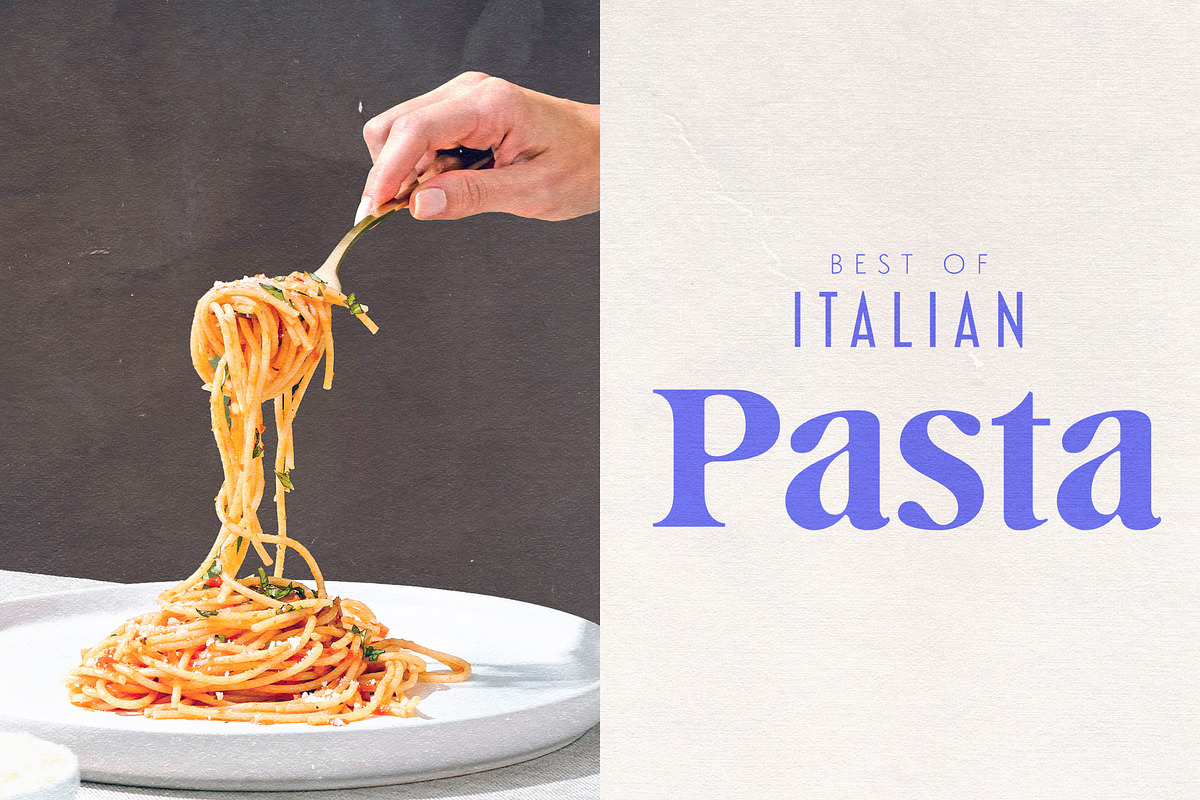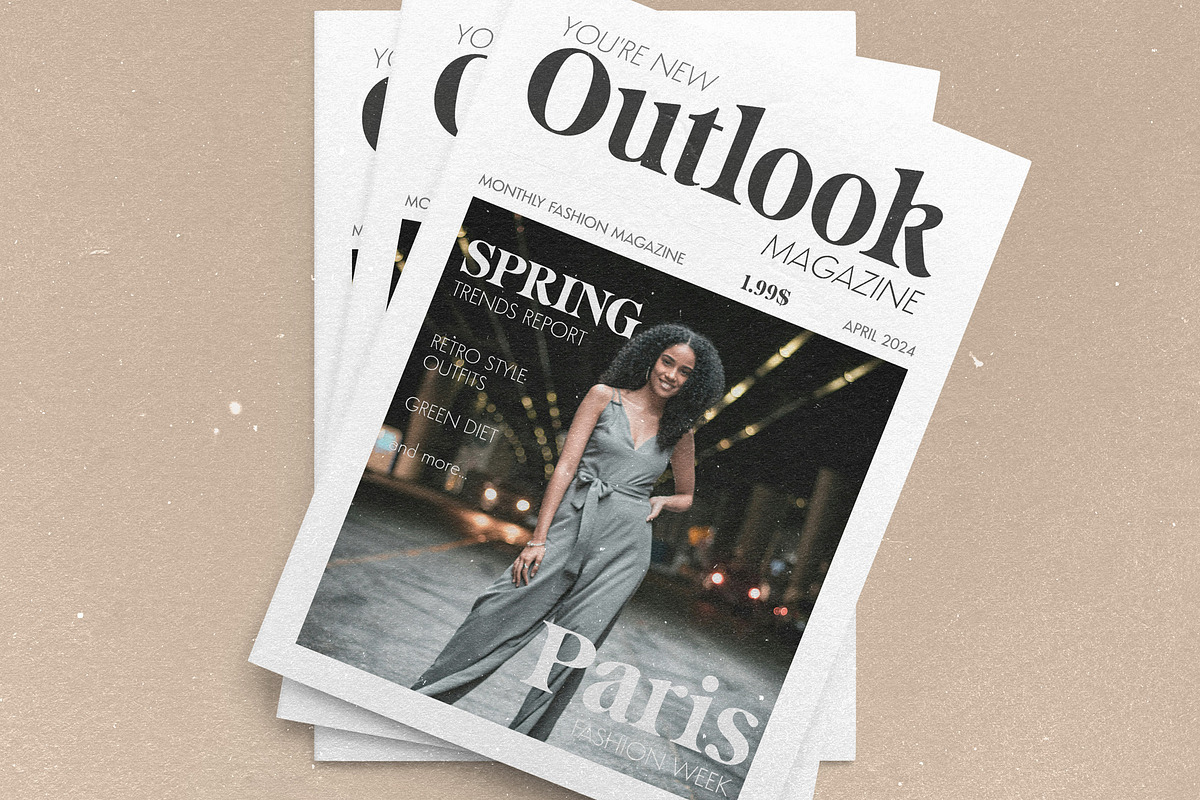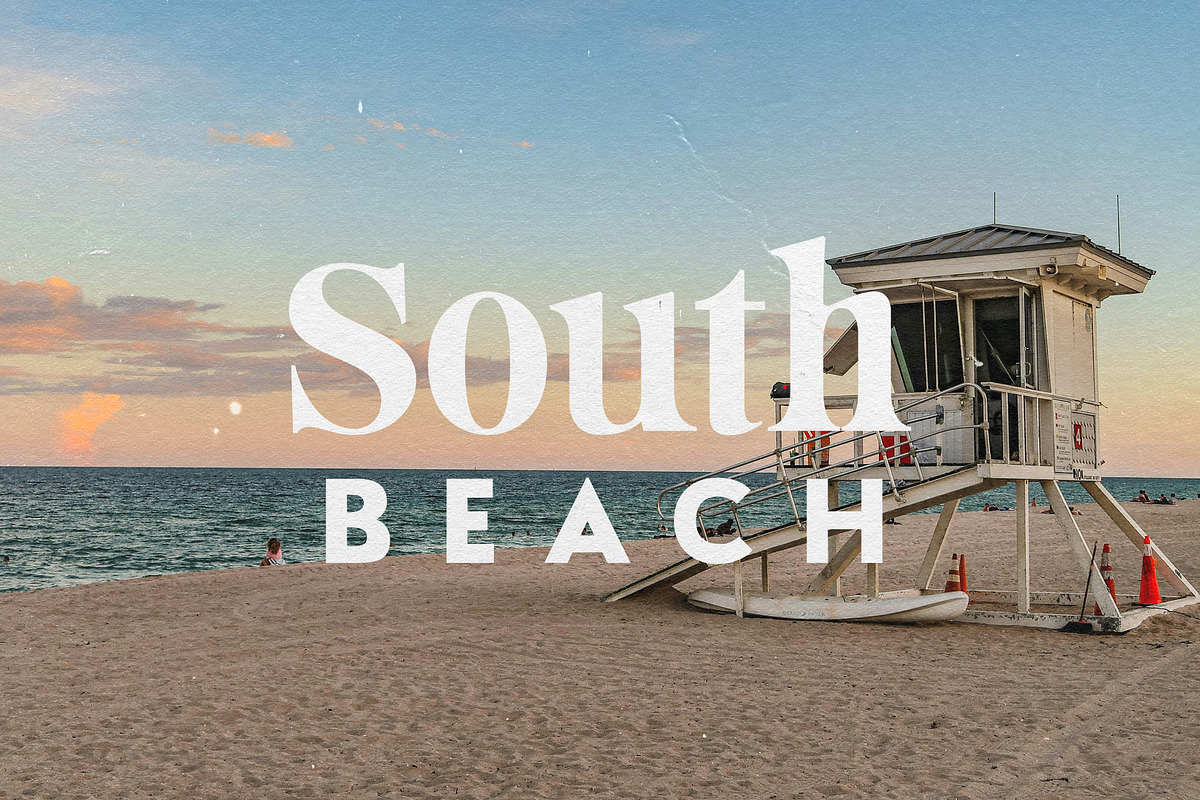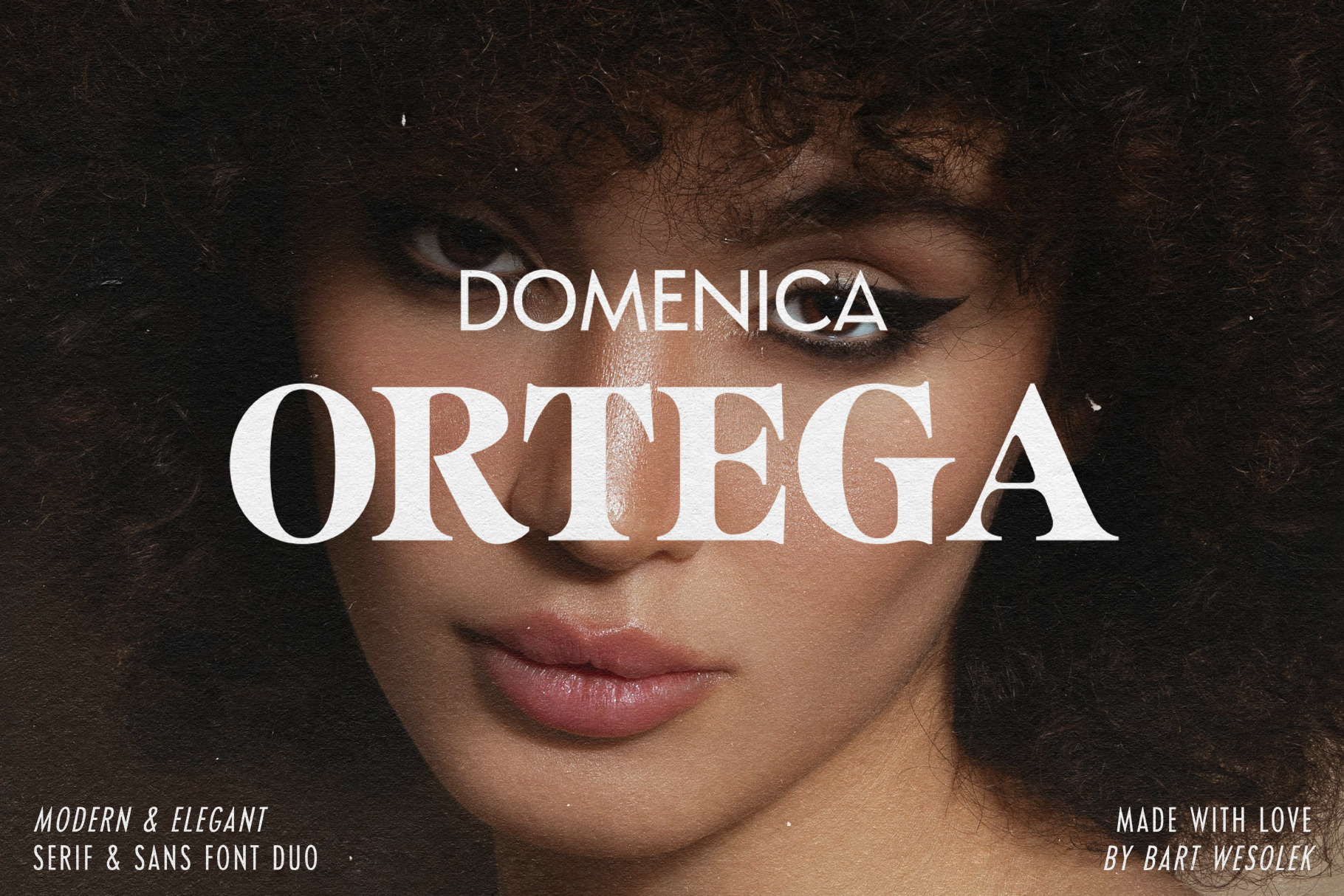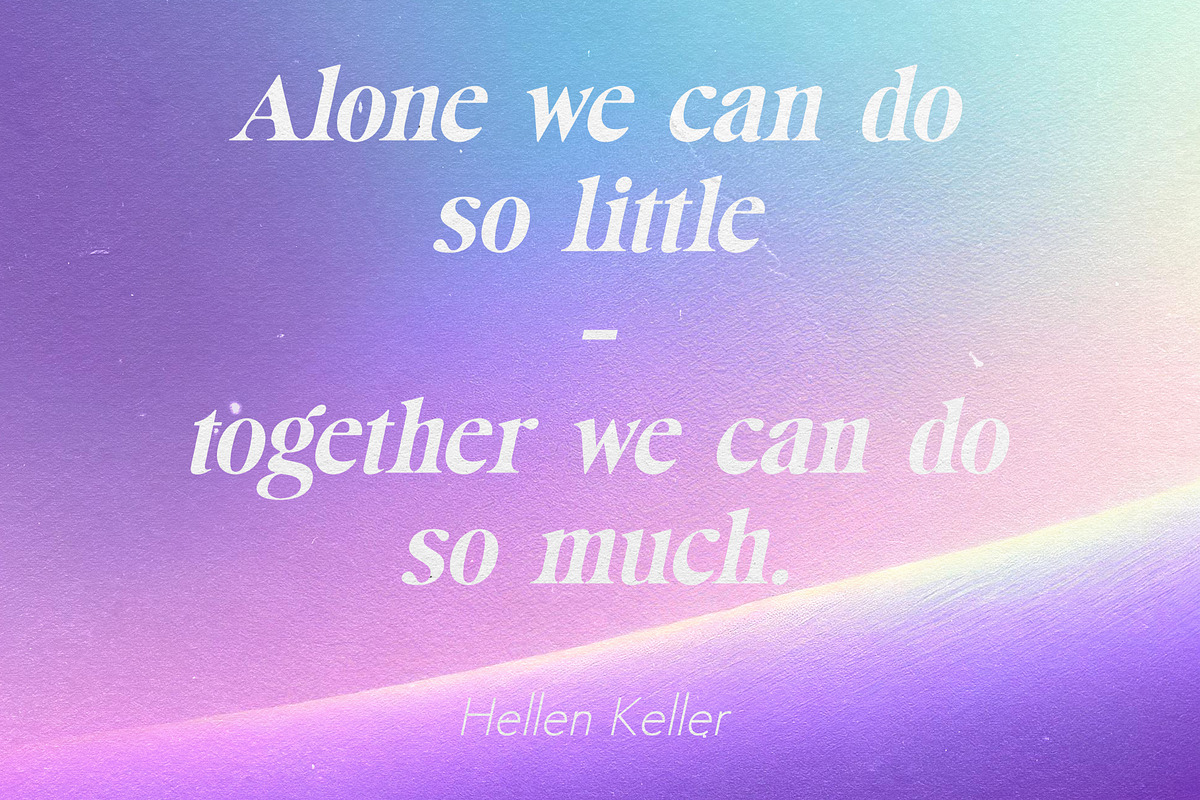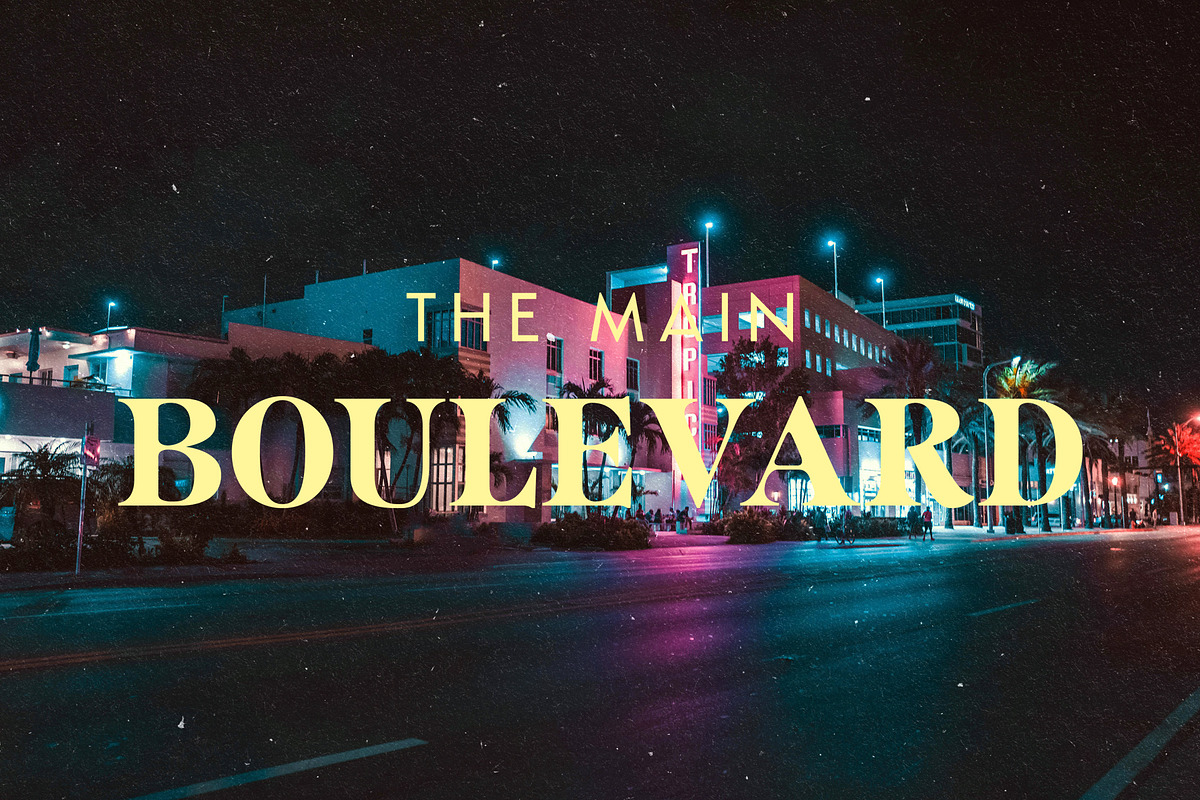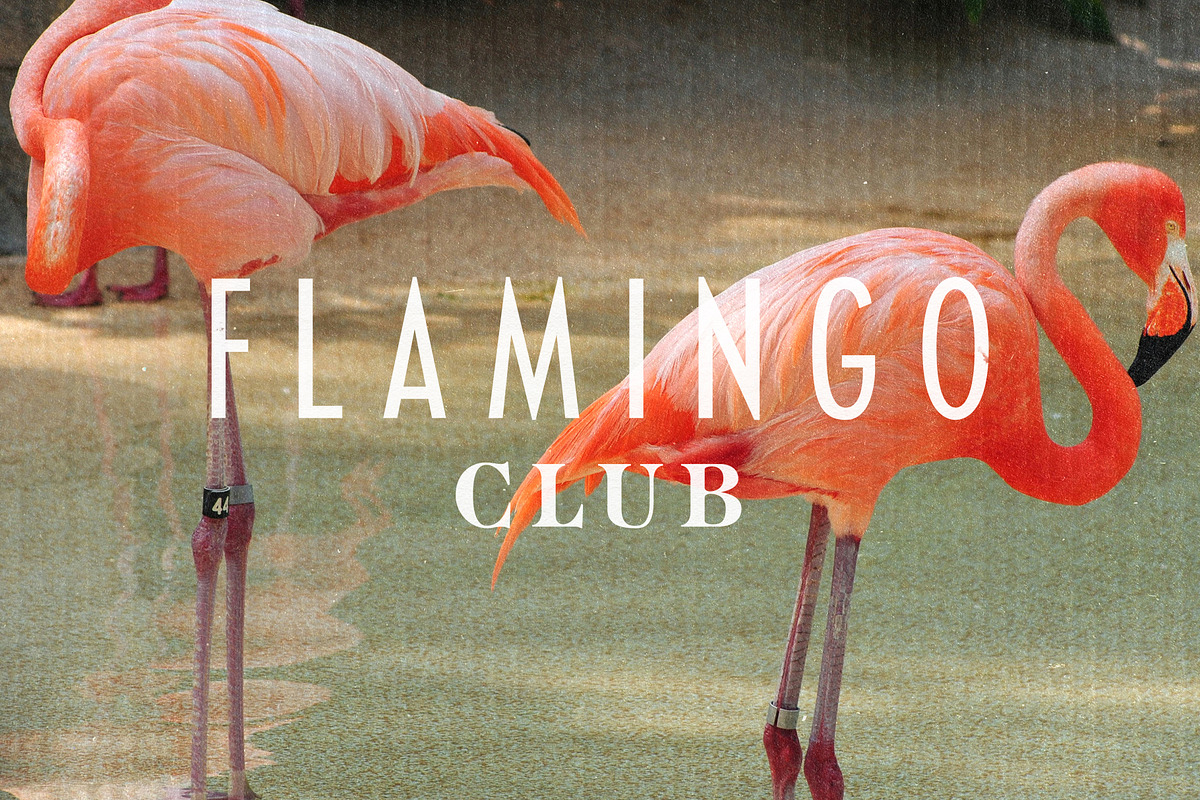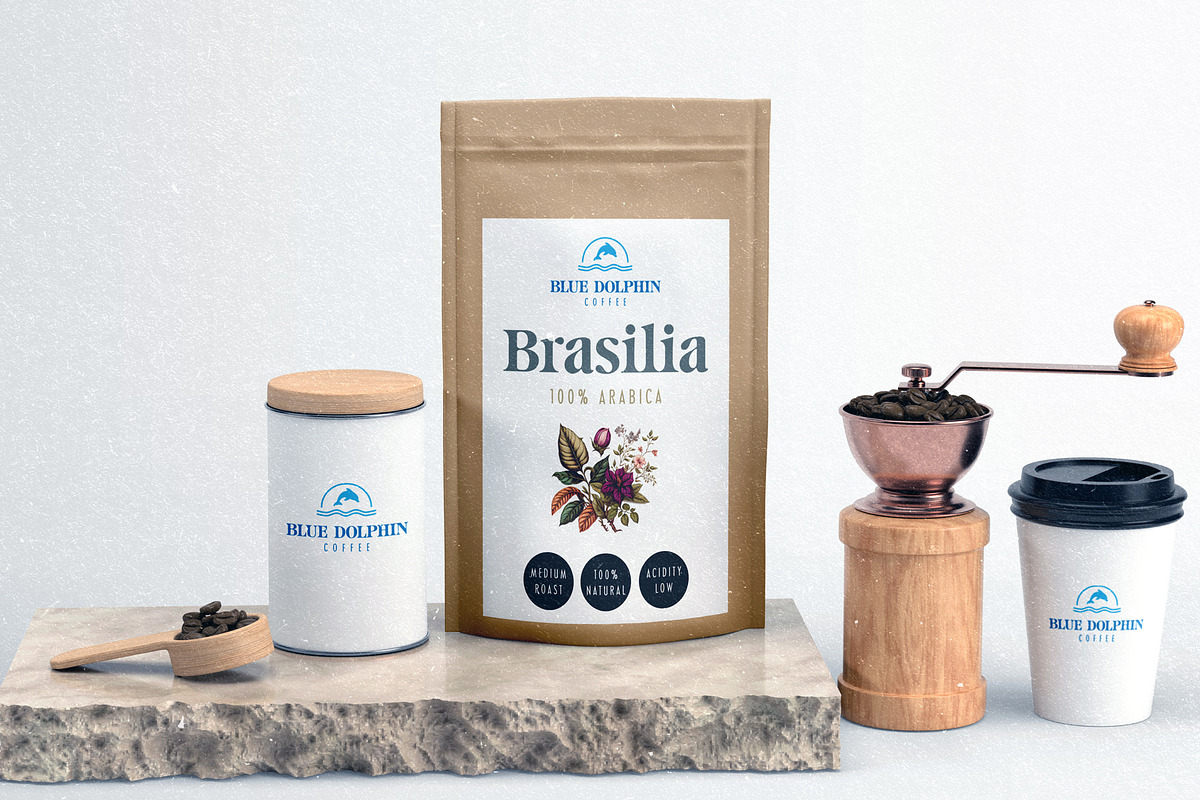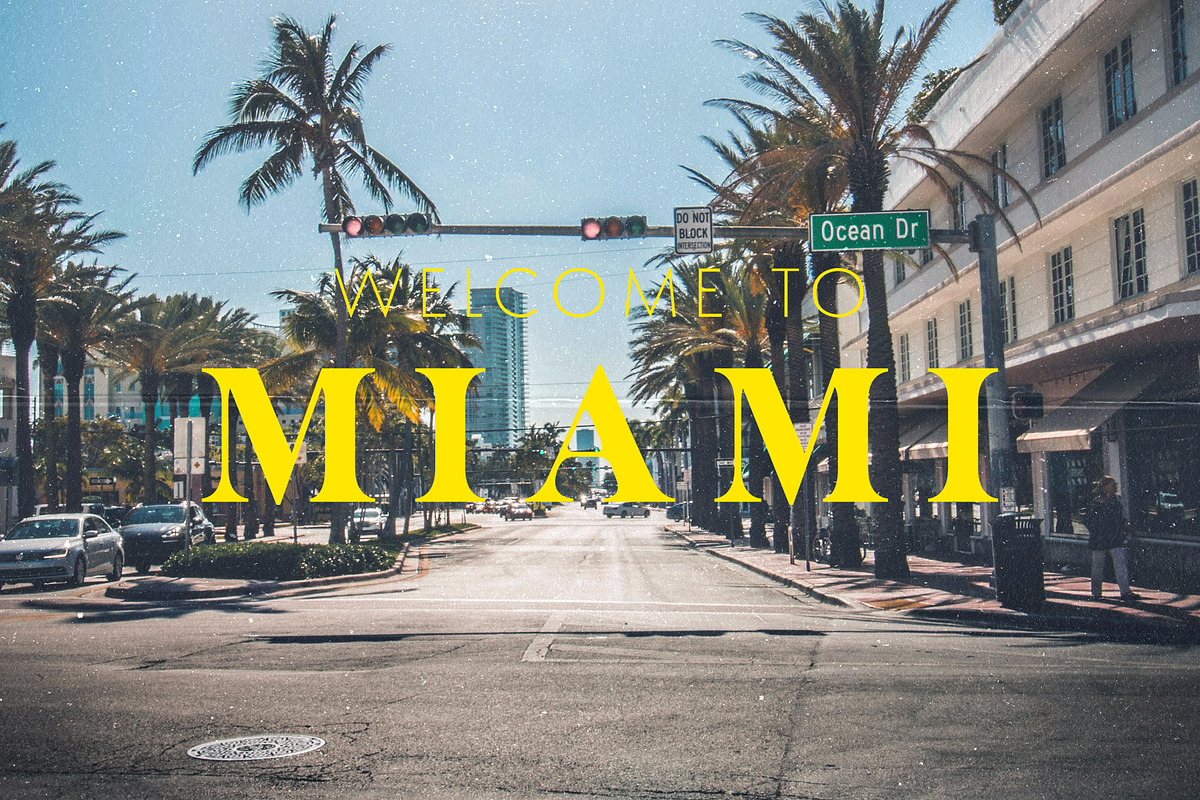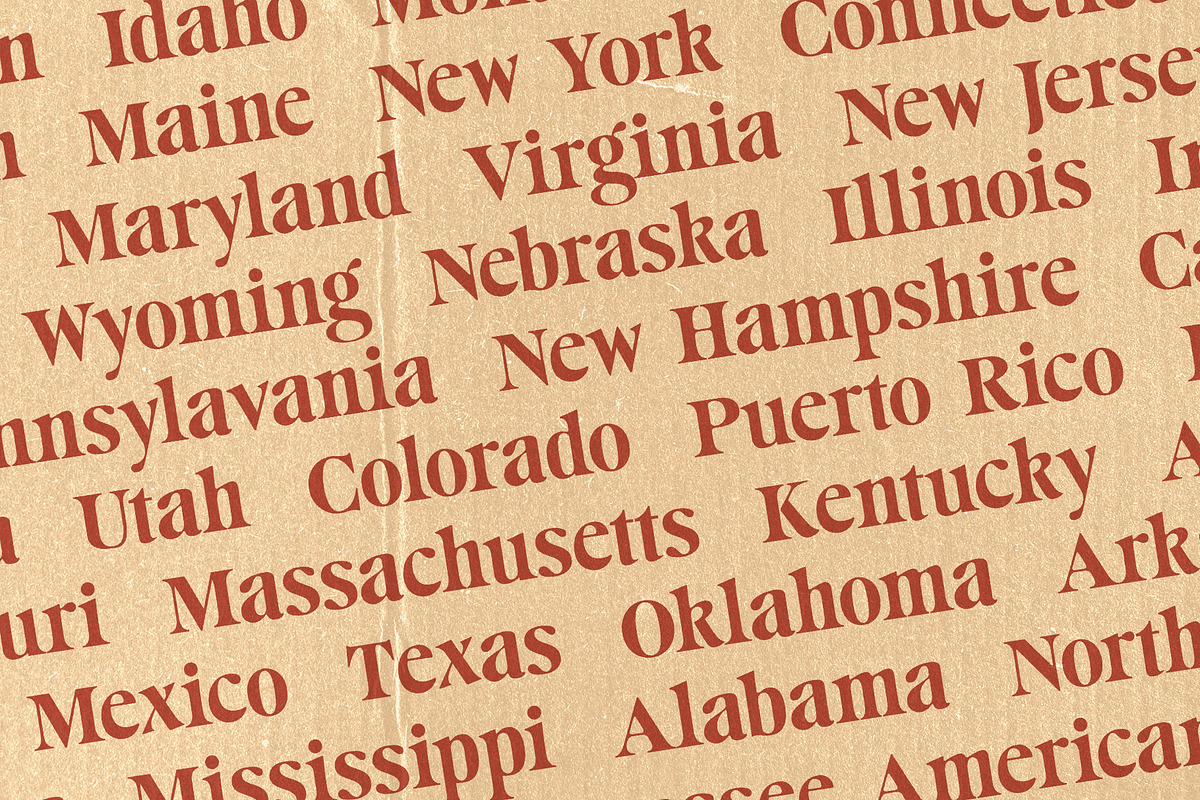
Domenica Ortega Font Duo
Domenica Ortega Font Duo brings together elegance and strength in one versatile typeface package. The serif “Domenica” features four distinct weights — Light, Regular, Condensed, and Bold — each with matching italics, offering a wide range of design possibilities. Paired with the simple yet refined “Ortega” sans version (Regular + Italic), this duo creates perfect contrast and harmony. Ideal for branding, labels, logotypes, editorial layouts, and expressive typography projects, it supports an extended Latin character set. Whether you’re designing packaging, web headers, or printed materials, this font duo elevates your work with sophistication, clarity, and timeless style.
Domenica comes with 8 styles:
- Light + italic
- Regular + italic
- Condensed + italic
- Bold + italic
Ortega comes with 2 styles:
- Regular + italic
Language support: ÀÁÂÃÄÅĀĄ Æ ĆÇ ÈÉÊËĒĘ ÌÍÎÏĪ Ð Ł ŃÑ ÒÓÔÕÖŒØ Ś ÙÚÛÜ ỲÝŶŸ ŻŹ Þß àáâãäåāą æ ćç èéêëēę ìíîïī ð ńñ òóôõöœø ś ùúûü ỳýŷÿ żź þ